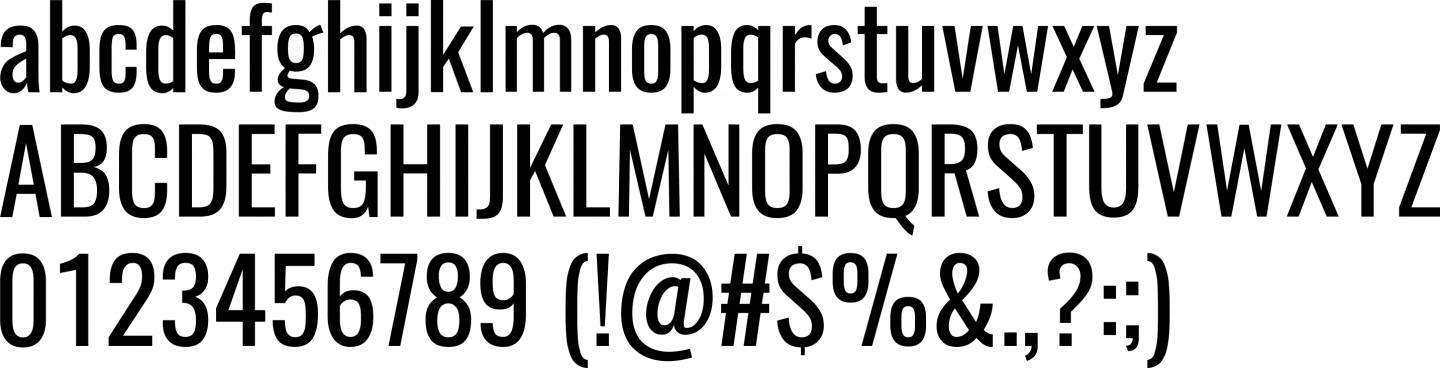
What font is this? (All I know is the font is from before 2011)
The font used in this image is Oswald. FYI, it is a bold, sans-serif typeface font, that is commonly used in logos and headings.
It’s not Oswald - this is Oswald
It’s an old post but FWIW the closest I can find is Onmuim Wide Extra Bold
Airwave bold is close